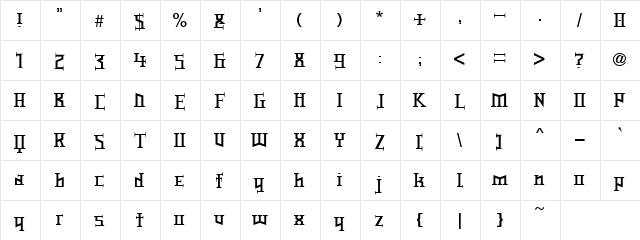
Type Knight Regular
Design Context for Type Knight Typeface
Type Knight is a composed and adaptable typeface that performs quietly and consistently across a wide range of design contexts.